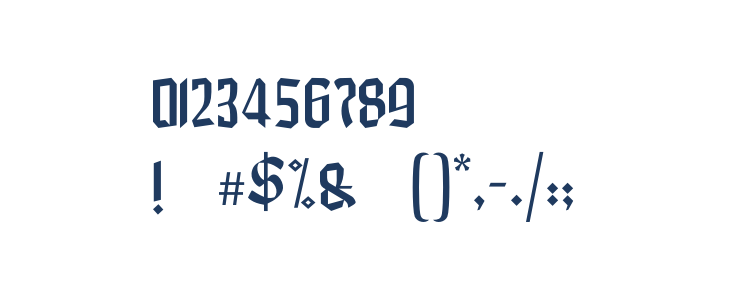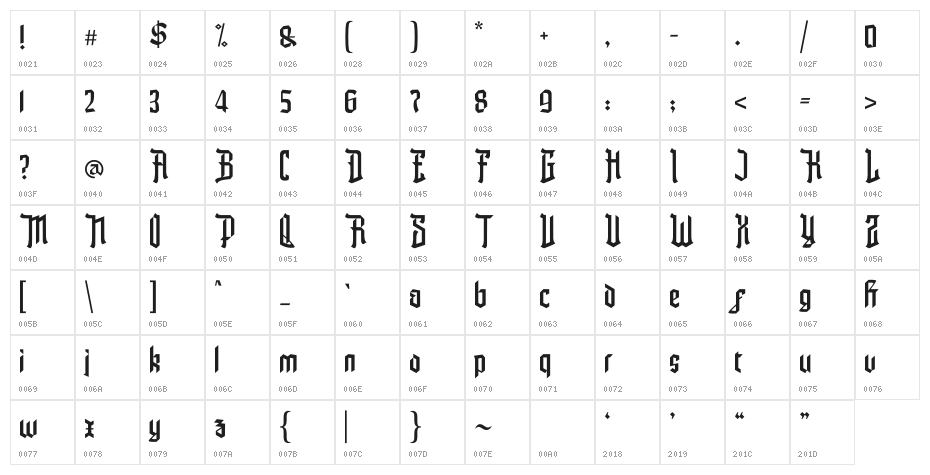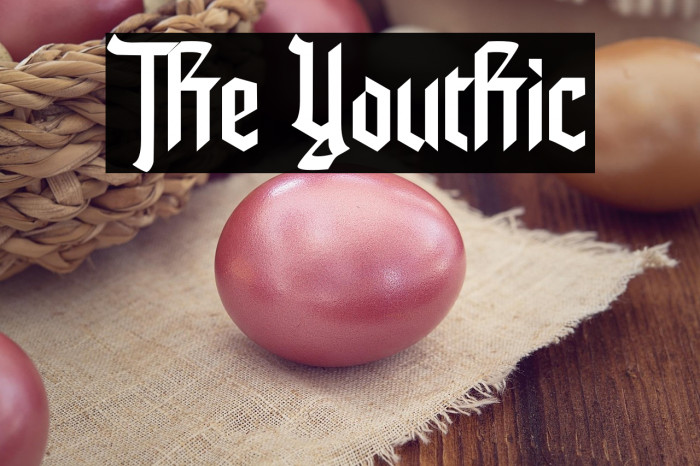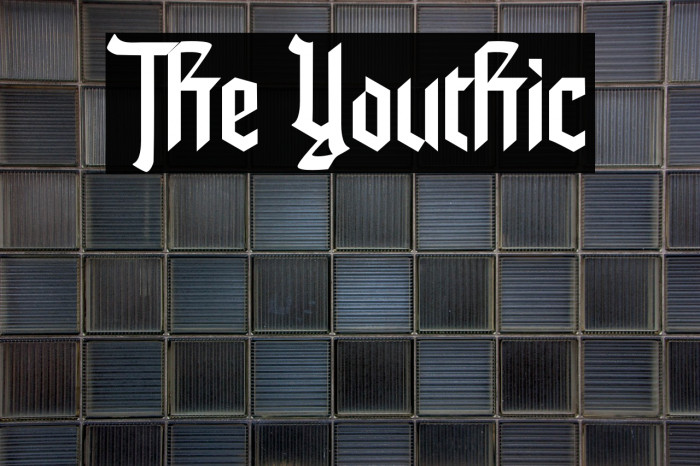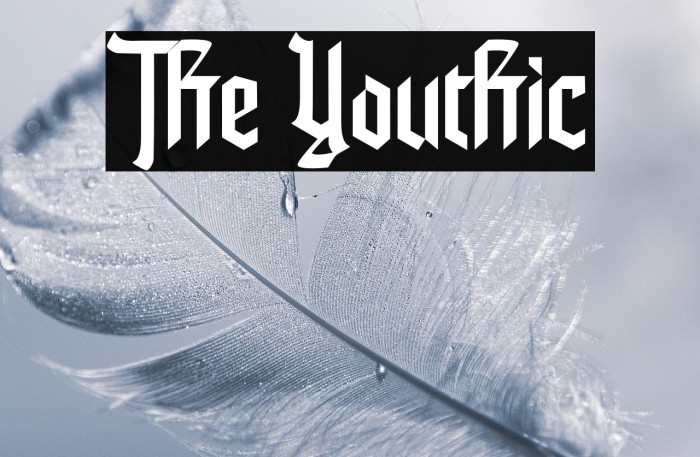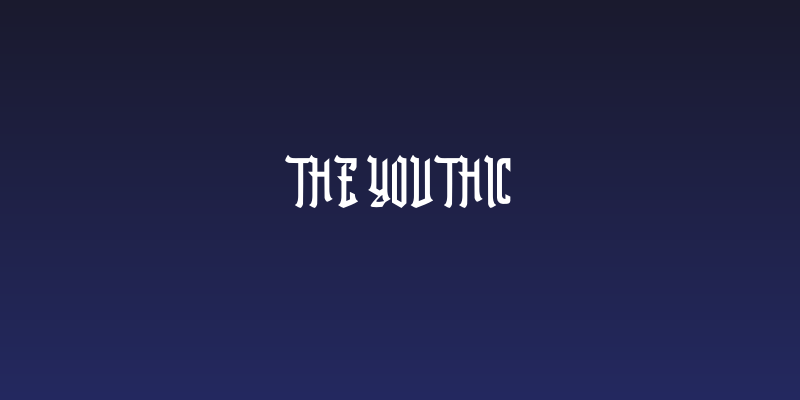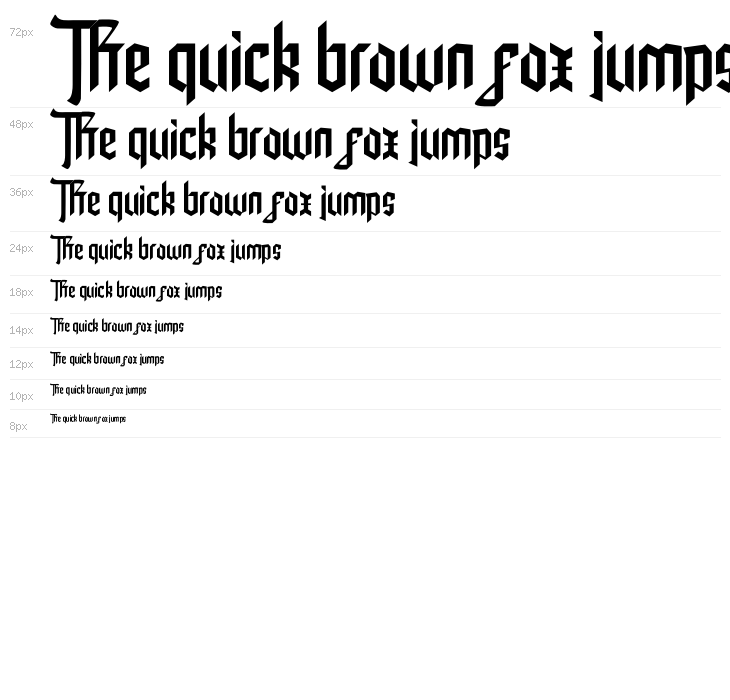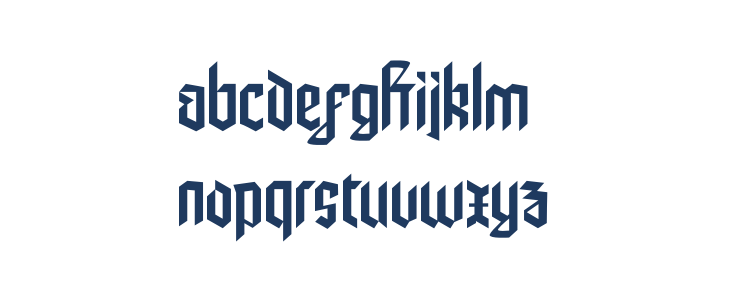
The Youthic Font
The Youthic Description
This font features a bold and striking design with a distinct blackletter style. The characters are sharply angular with dramatic strokes, giving it a gothic and medieval appearance. The uppercase letters are tall and imposing, while the lowercase letters maintain a consistent style with slightly more rounded edges. The numbers and special characters follow the same bold and angular design, ensuring a cohesive look across all elements. This font is perfect for projects that require a strong, historical, or dramatic aesthetic.
| Proposed Projects | Ideal for branding, posters, album covers, and any design needing a gothic or medieval touch. |